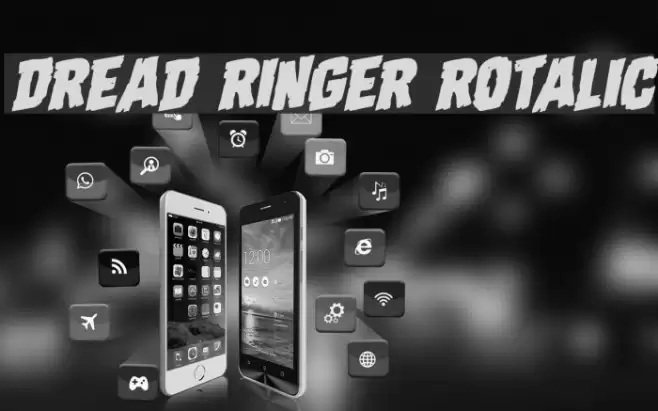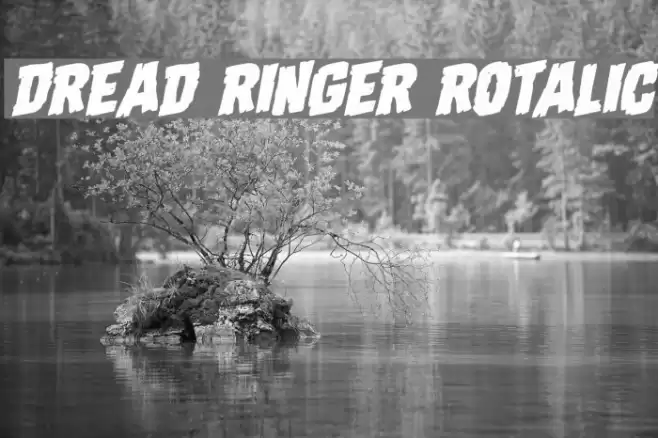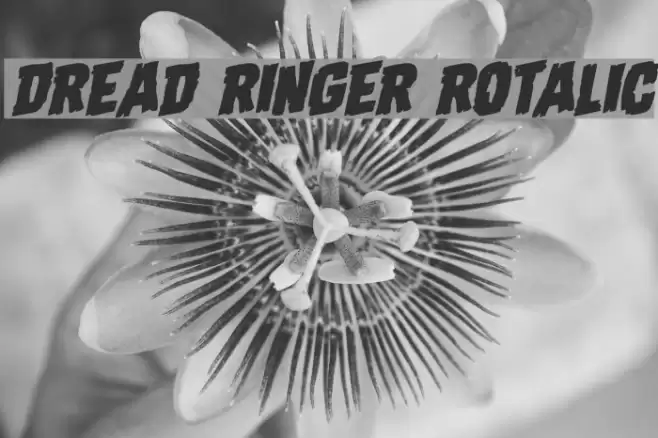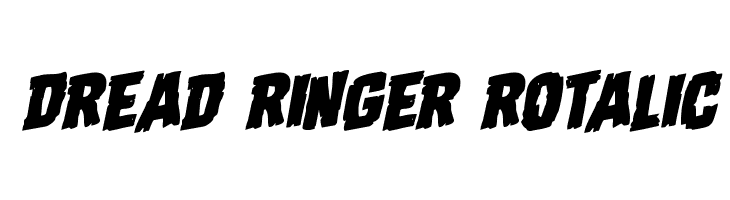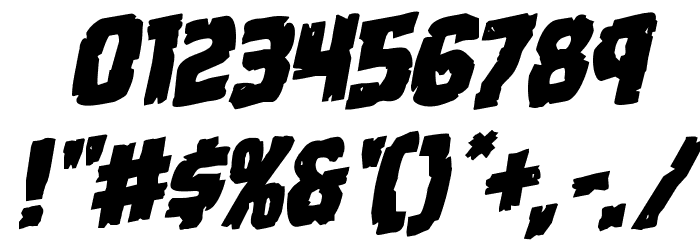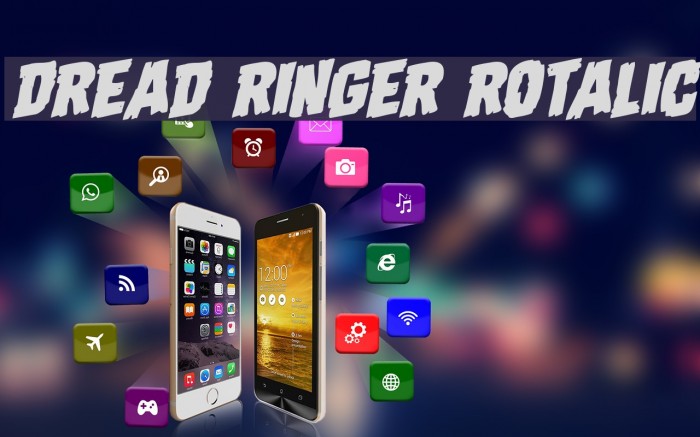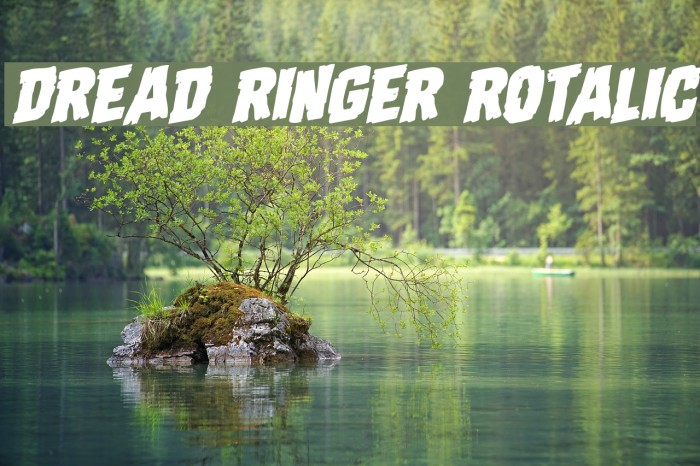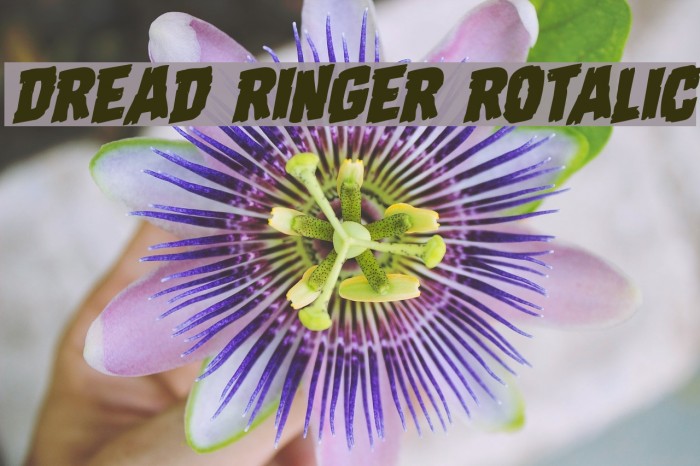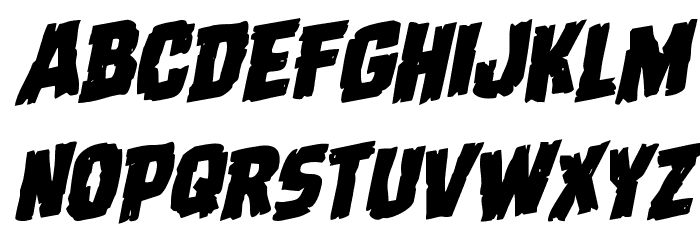
Dread Ringer Rotalic Font
Dread Ringer Rotalic Description
This font exhibits a bold and dynamic style with a strong presence. The characters are heavily slanted, giving a sense of motion and urgency. The strokes are thick and uneven, creating a rugged and distressed appearance. The uppercase and lowercase letters maintain a consistent style, with sharp edges and irregular contours. The numbers and special characters follow the same bold and energetic design, making them stand out. This font is ideal for projects that require a dramatic and impactful visual element.
A bold, slanted, and distressed font with a dynamic and rugged style from Horror fonts.
- Proposed Projects: Perfect for posters, album covers, video game titles, and any project needing a bold, energetic look.
- Overall Style: Modern, Decorative